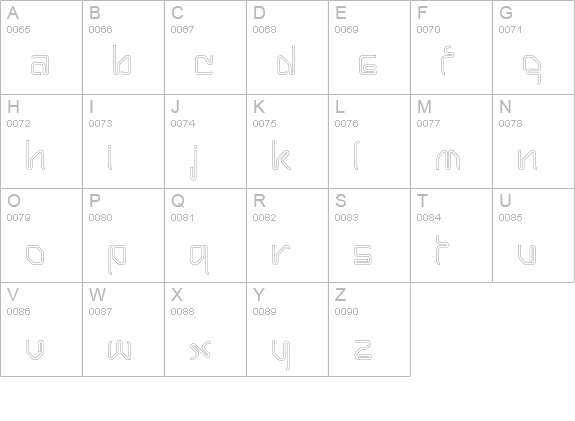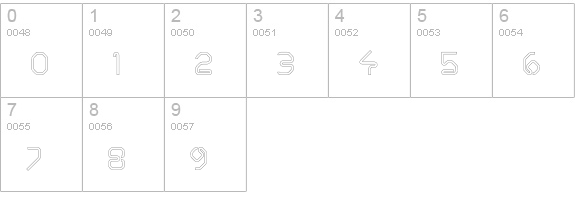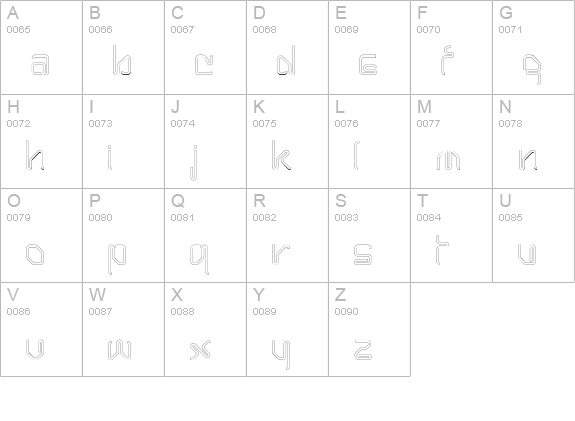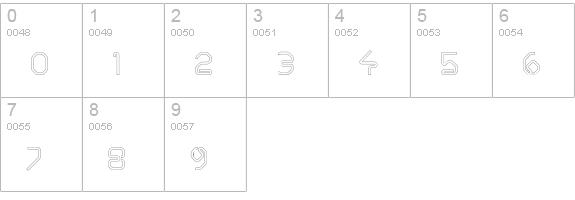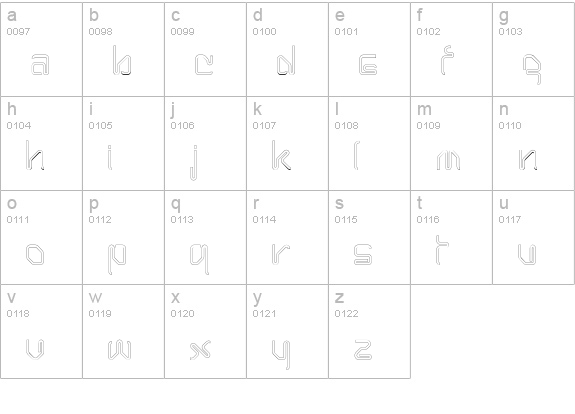
HairpinHairline Font Details
HairpinHairline is a beautiful and elegant font that will add a touch of sophistication to any design project. With its delicate and flowing lines, this font is perfect for creating eye-catching headers, titles, and logos. The thin strokes of HairpinHairline give it a refined and graceful appearance, making it ideal for wedding invitations, fashion magazines, and high-end branding. What sets HairpinHairline apart is that it is not only stunning, but also completely free! That's right, this font can be downloaded at no cost from FontsMarket.com. Whether you're a professional designer or a hobbyist, you can easily access and use HairpinHairline for all your creative endeavors. Designed with versatility in mind, HairpinHairline is highly legible even at smaller sizes, making it suitable for body text as well. Its timeless appeal and classic charm make it a great choice for projects that require a touch of elegance and sophistication. So, if you're searching for a font that combines beauty, versatility, and affordability, look no further than HairpinHairline. Download this stunning font for free at FontsMarket.com and let your creativity shine!